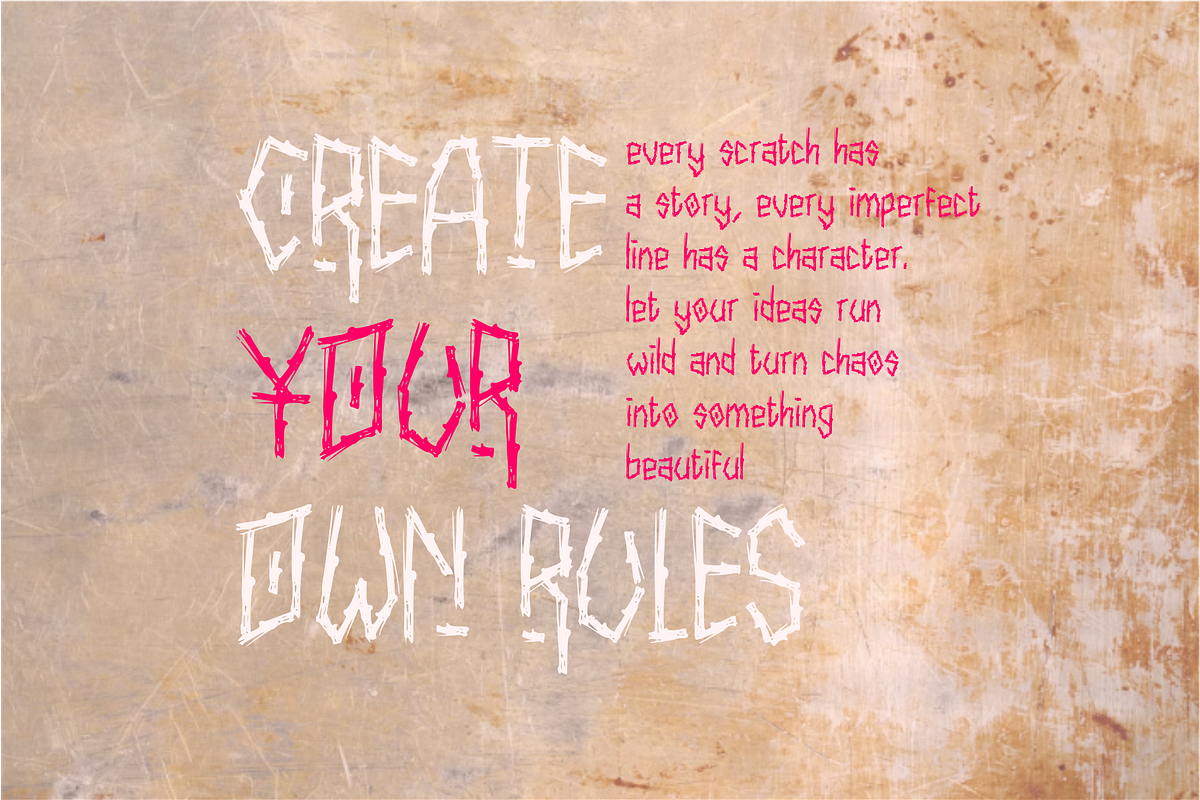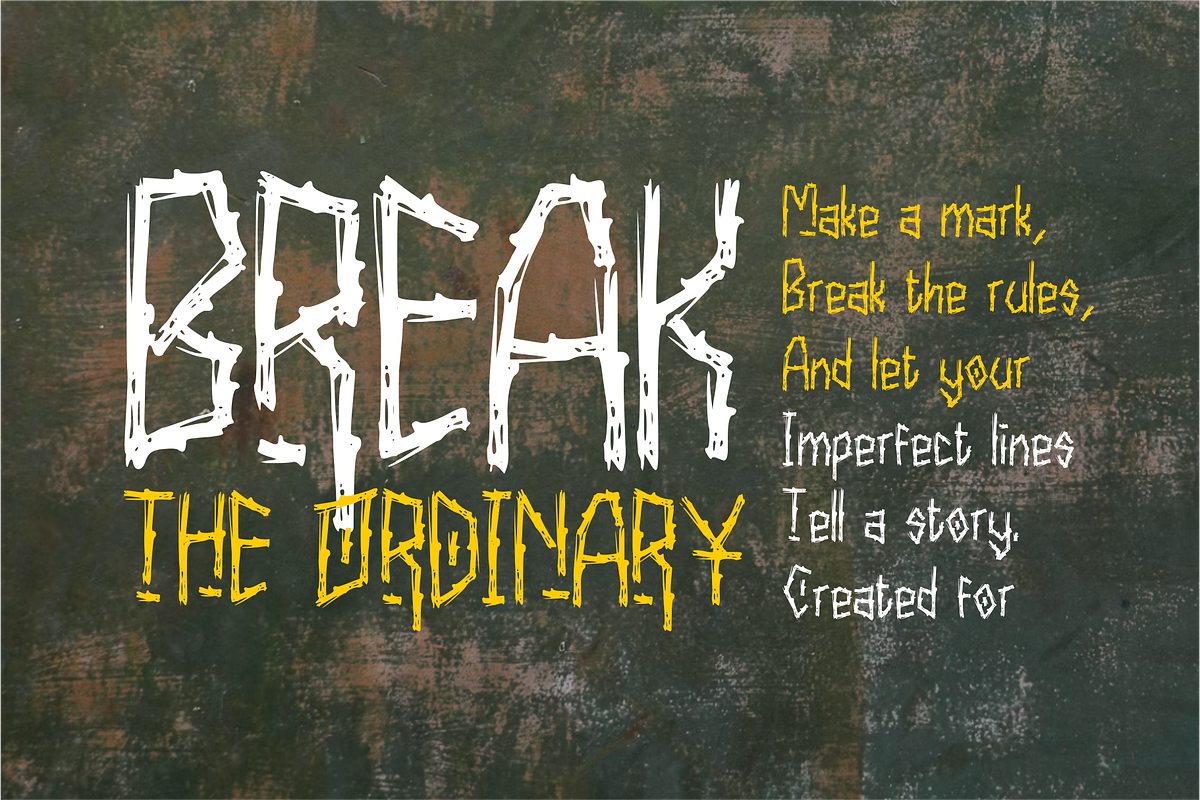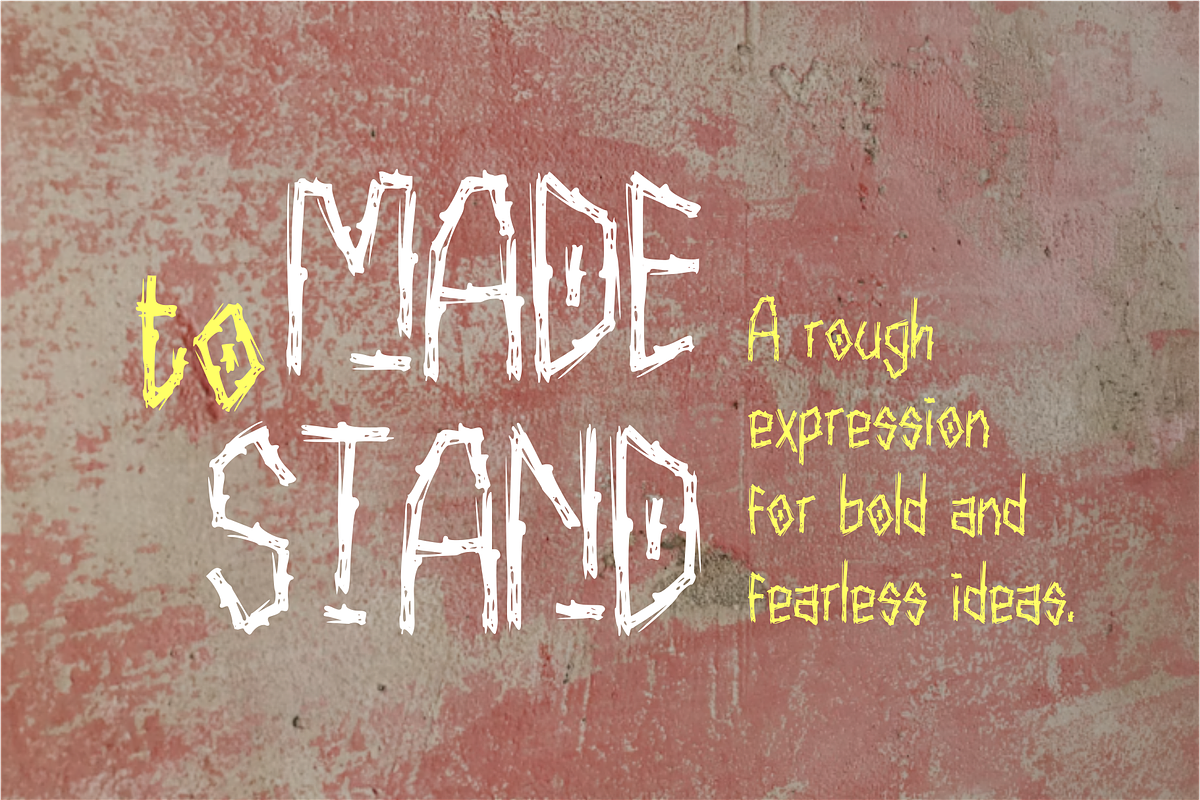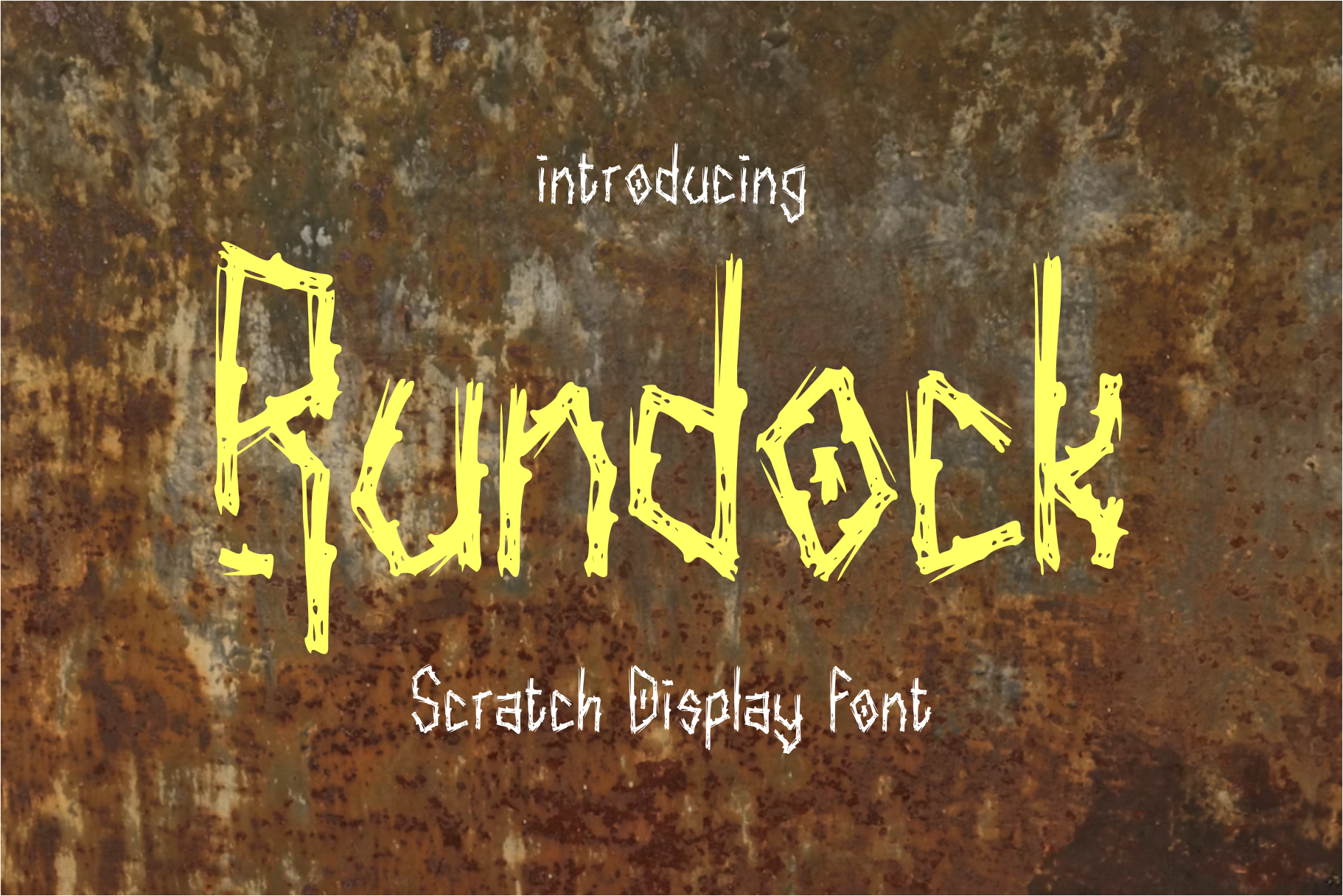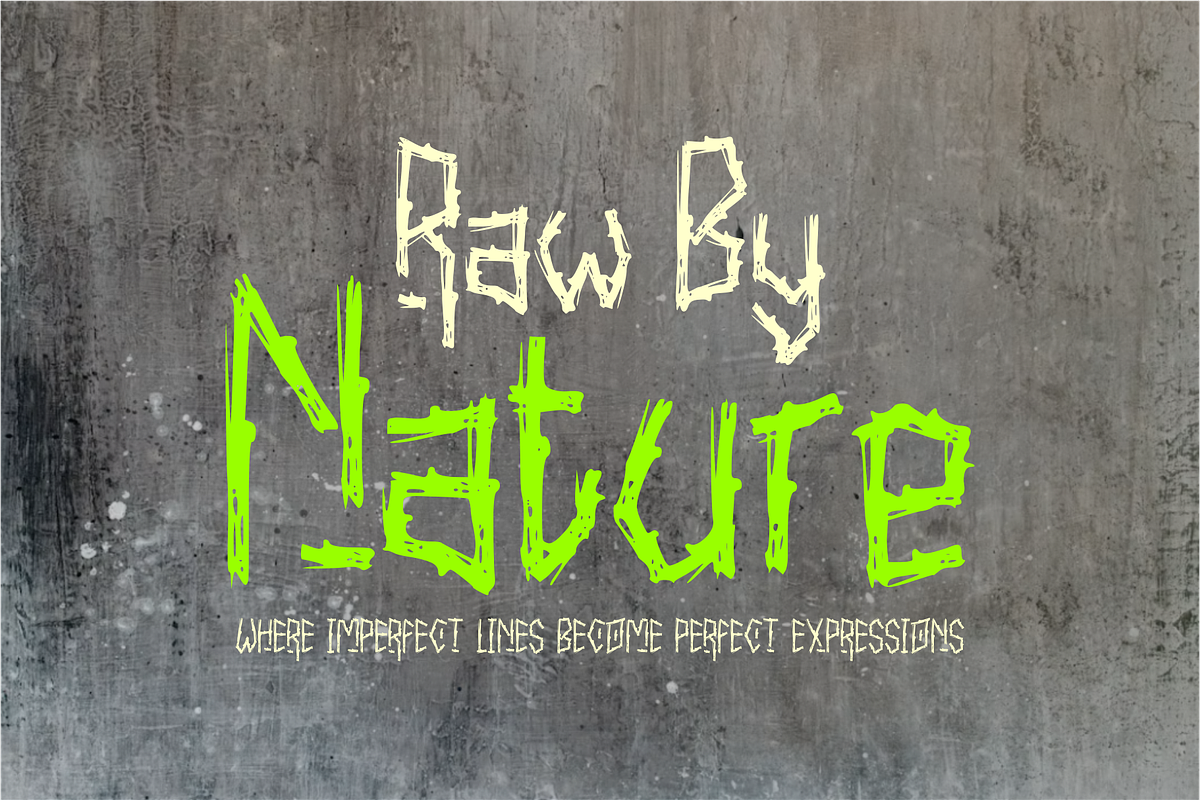
Rundock - Scratch Display Font
Rundock — Scratch Display Font
Rundock is a raw and expressive scratch display font designed to bring a rebellious, handcrafted character to bold visual compositions. Its irregular strokes, rough edges, sharp details, and distressed texture create an intentionally imperfect appearance that feels energetic, wild, and authentic.
Inspired by hand-scratched lettering and underground visual aesthetics, Rundock works especially well for designs that need a strong alternative personality. Its distinctive letterforms make it suitable for posters, album artwork, band branding, streetwear graphics, merchandise, event flyers, editorial headlines, logos, packaging, and experimental creative projects.
The rough and unpredictable character of Rundock gives each word a sense of movement and attitude, making it ideal for designers looking to move away from clean and conventional typography. Whether used as a powerful headline or a striking branding element, Rundock brings a raw visual impact to every composition.
Rundock is perfect for:
Poster & flyer design
Streetwear & fashion branding
Music & album artwork
Band logos
Event & festival graphics
Editorial headlines
Merchandise design
Packaging
Alternative & underground branding
Experimental typography
Social media artwork
Creative advertising
Rundock — made to look rough, fearless, and unapologetically different.